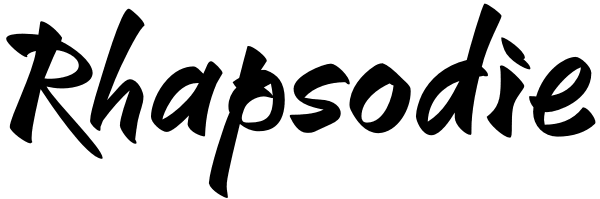
Rhapsodie
Rhapsodie was originally developed from some freehand calligraphy that I used for a series of posters. It has proved effective in headlines and is remarkably legible and strong with some interesting, somewhat cursive capitals.